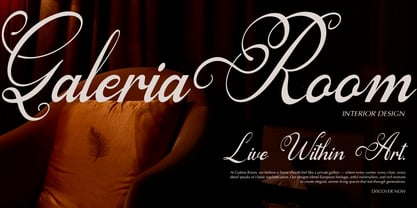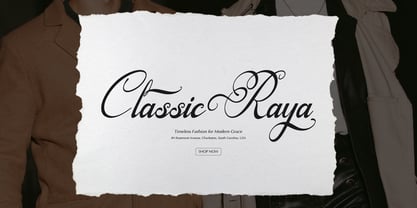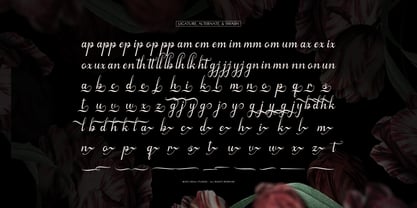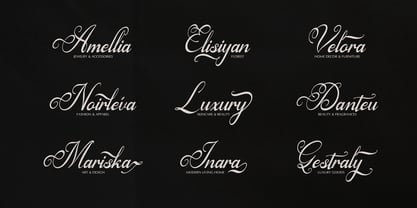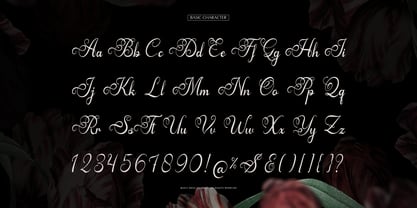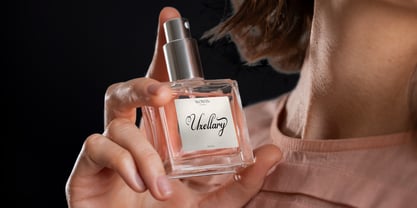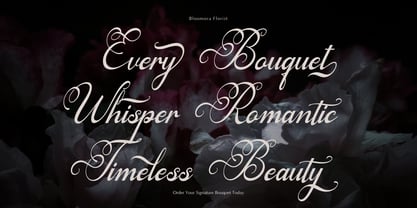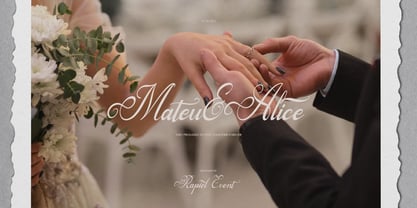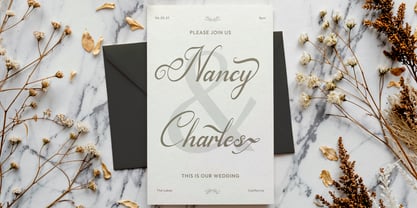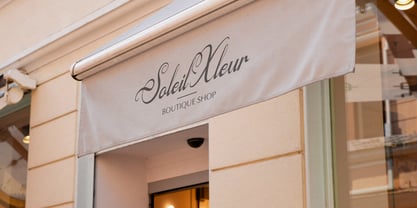
Arthemy Rorelia
by Denustudio
The Arthemy Rorelia Font Family was designed by Dede Nugraha and published by Denustudio. Arthemy Rorelia contains 2 styles and family package options.
Arthemy Rorelia | Beautiful Calligraphy, from Denustudios, suitable for any projects such as: logos, branding projects, homeware designs, product packaging, mugs, quotes, posters, shopping bags, t-shirts, book covers, name card, invitation cards, greeting cards, label, photography, watermark, special events, and all your other lovely projects that need Beautiful Calligraphy a taste.
• Regular and Italic
• Standard glyphs
• Alternate and Ligature